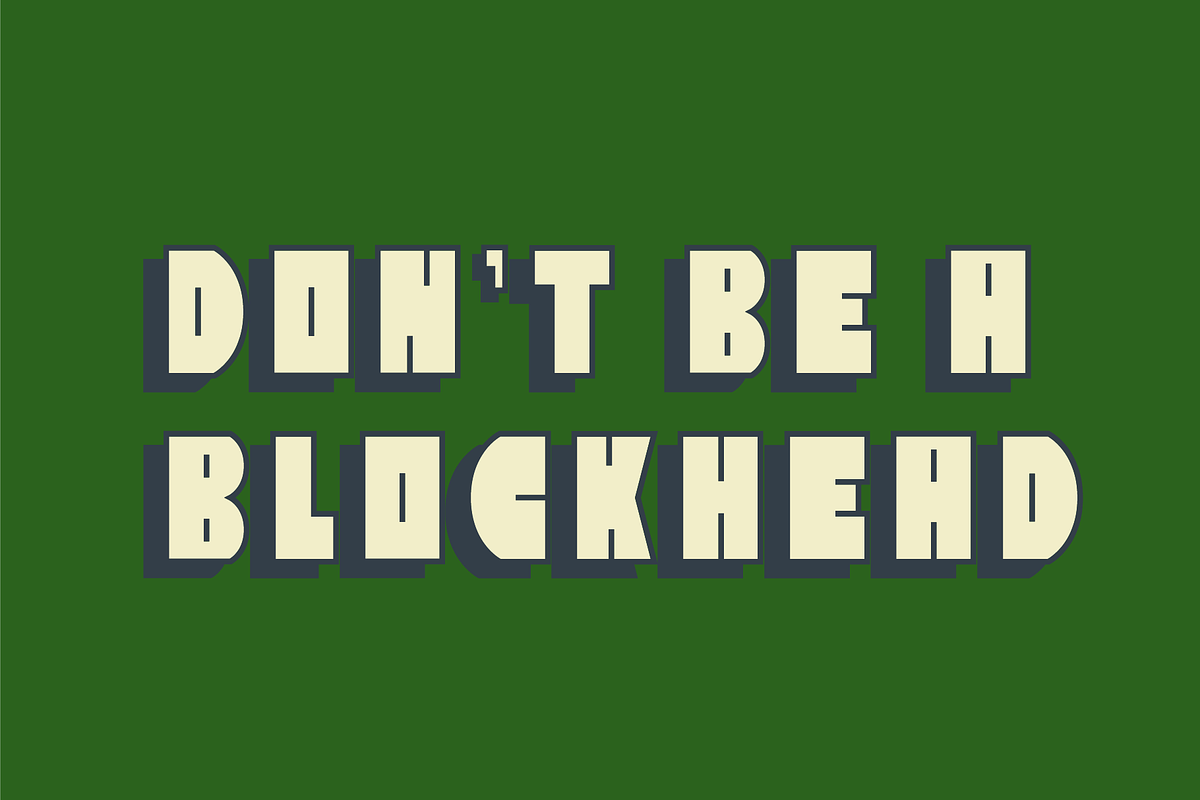
Block Head
Just your typical playful everyday blocky typeface. This goofy geometric comical font has a big personality with 5 styles. Perfect for a childish fun filled project. This typeface was specifically designed to combine with each of the 5 styles it comes in.
- Four styles (Solid, Solid w/ Drop Shadow, Outline, Outline w/ Drop Shadow, and Drop Shadow)
- Full Uppercase and Lowercase A to Z character set
- Numbers and mathematical symbols
- Special characters and full multilingual support set
- Kerning Pairs